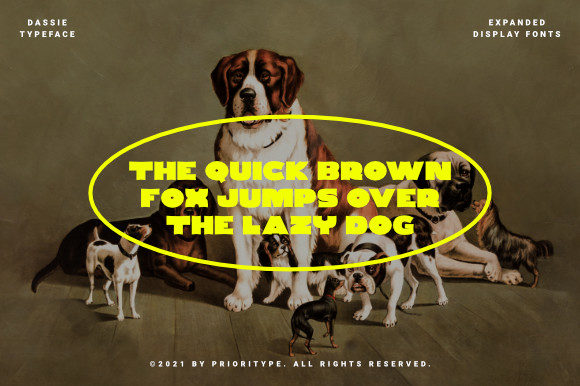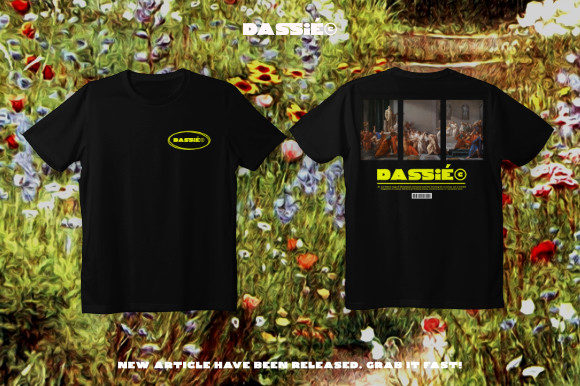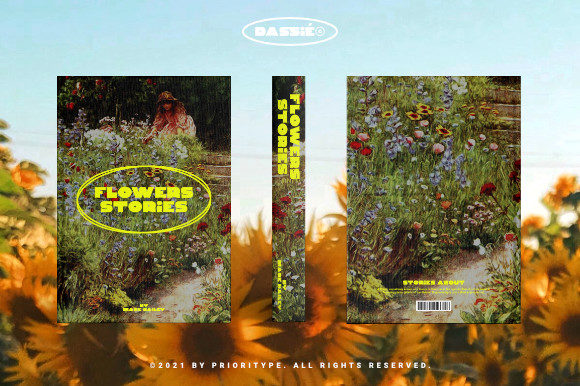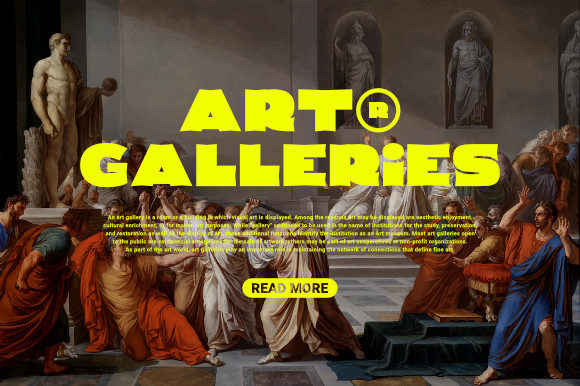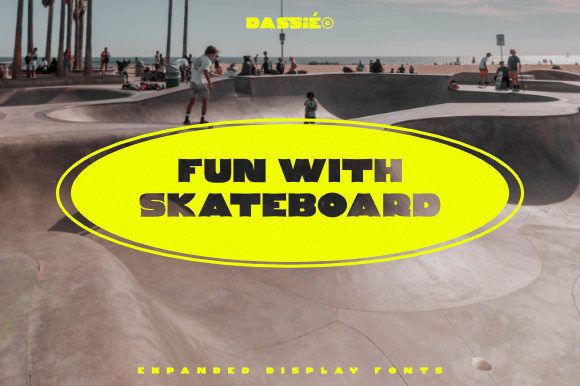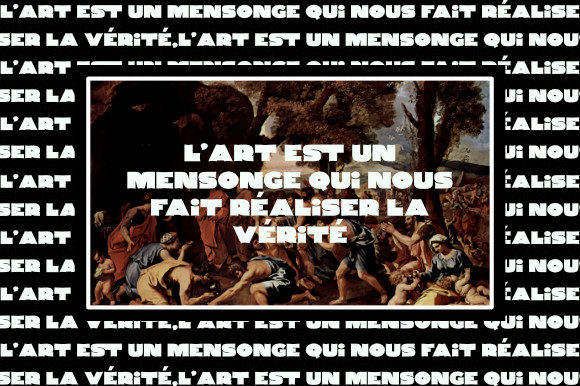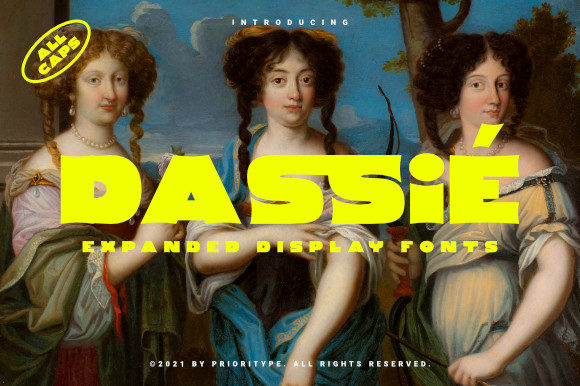
Dassie Font: The Ultimate Display Font for Creative Minds
In the world of typography, a good font can make all the difference in creating a lasting impression. For designers, crafters, and creative enthusiasts, finding the perfect font that adds a unique touch to their projects can be a daunting task. That’s where Dassie Font comes in – a cool, distinct, and bold display font that’s expertly designed to make your creations look out of this world.
What is Dassie Font?
Dassie Font is a modern, sans-serif display font that’s perfect for making a statement. Its bold and eye-catching design makes it ideal for a variety of creative projects, from web designs and business cards to posters, flyers, and more. With its unique and distinctive style, Dassie Font is sure to grab attention and leave a lasting impression.
Key Features of Dassie Font
- Bold and Eye-Catching: Dassie Font is designed to make a statement. Its bold and eye-catching design ensures that your creations stand out from the crowd.
- Unique and Distinctive: With its unique and distinctive style, Dassie Font adds a touch of personality to your projects.
- Highly Versatile: Dassie Font is perfect for a variety of creative projects, from web designs and business cards to posters, flyers, and more.
- Easily Readable: Despite its bold design, Dassie Font is easily readable, making it perfect for use in a variety of contexts.
Why Choose Dassie Font?
So, why choose Dassie Font for your creative projects? Here are just a few reasons:
- Adds a Unique Touch: Dassie Font adds a unique and distinctive touch to your projects, setting them apart from the crowd.
- Perfect for Branding: With its bold and eye-catching design, Dassie Font is perfect for use in branding and advertising materials.
- High-Quality Design: Dassie Font is expertly designed to ensure high-quality results that look great on any device.
Uses of Dassie Font
Dassie Font is a highly versatile font that can be used in a variety of creative projects, including:
- Web Design: Use Dassie Font to add a bold and eye-catching touch to your website designs.
- Business Cards: Make a lasting impression with Dassie Font on your business cards.
- Posters and Flyers: Use Dassie Font to grab attention with your posters and flyers.
- Social Media Graphics: Add a unique touch to your social media graphics with Dassie Font.
- Logos and Branding: Use Dassie Font to create bold and eye-catching logos and branding materials.
Tips for Using Dassie Font
Here are a few tips for using Dassie Font in your creative projects:
- Use it Sparingly: While Dassie Font is bold and eye-catching, it’s best to use it sparingly to avoid overwhelming your designs.
- Pair it with Other Fonts: Experiment with pairing Dassie Font with other fonts to create a unique and visually appealing design.
- Adjust the Size: Play around with different font sizes to find the perfect balance for your design.
In conclusion, Dassie Font is a cool, distinct, and bold display font that’s perfect for creative minds. With its unique and distinctive style, highly versatile design, and ease of use, Dassie Font is sure to become a go-to font for designers, crafters, and creative enthusiasts. Whether you’re working on a web design, business card, or poster, Dassie Font is sure to add a unique touch that sets your creations apart from the crowd.